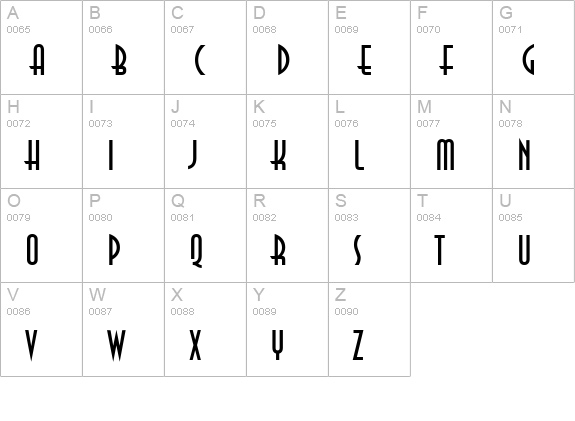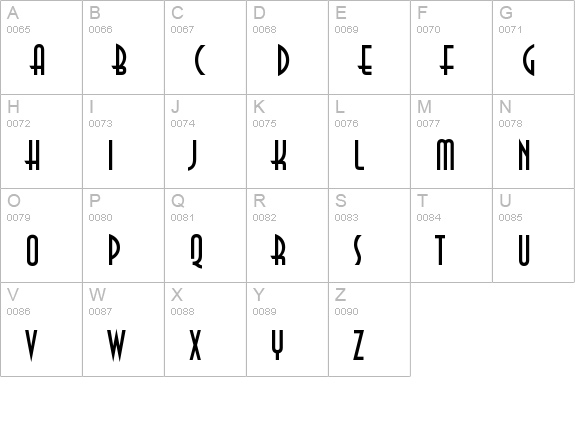
Anastasia Regular Font Details
Anastasia Regular is the standard, neutral variant in the Anastasia typeface family \xE2\x80\x94 well suited to general body text, paragraphs, and standard typographic work.
Anastasia Regular font is a classic and elegant typeface that exudes sophistication and charm. With its graceful curves and timeless appeal, this font is perfect for various design projects, from invitations to branding to packaging. The versatility of Anastasia Regular makes it a go-to choice for designers looking to add a touch of refinement to their work. The best part? Anastasia Regular font is completely free to download at FontsMarket.com. This means you can elevate your designs without breaking the bank. Don't miss out on the opportunity to enhance your projects with this beautiful font. Download Anastasia Regular today and see the difference it can make in your designs.